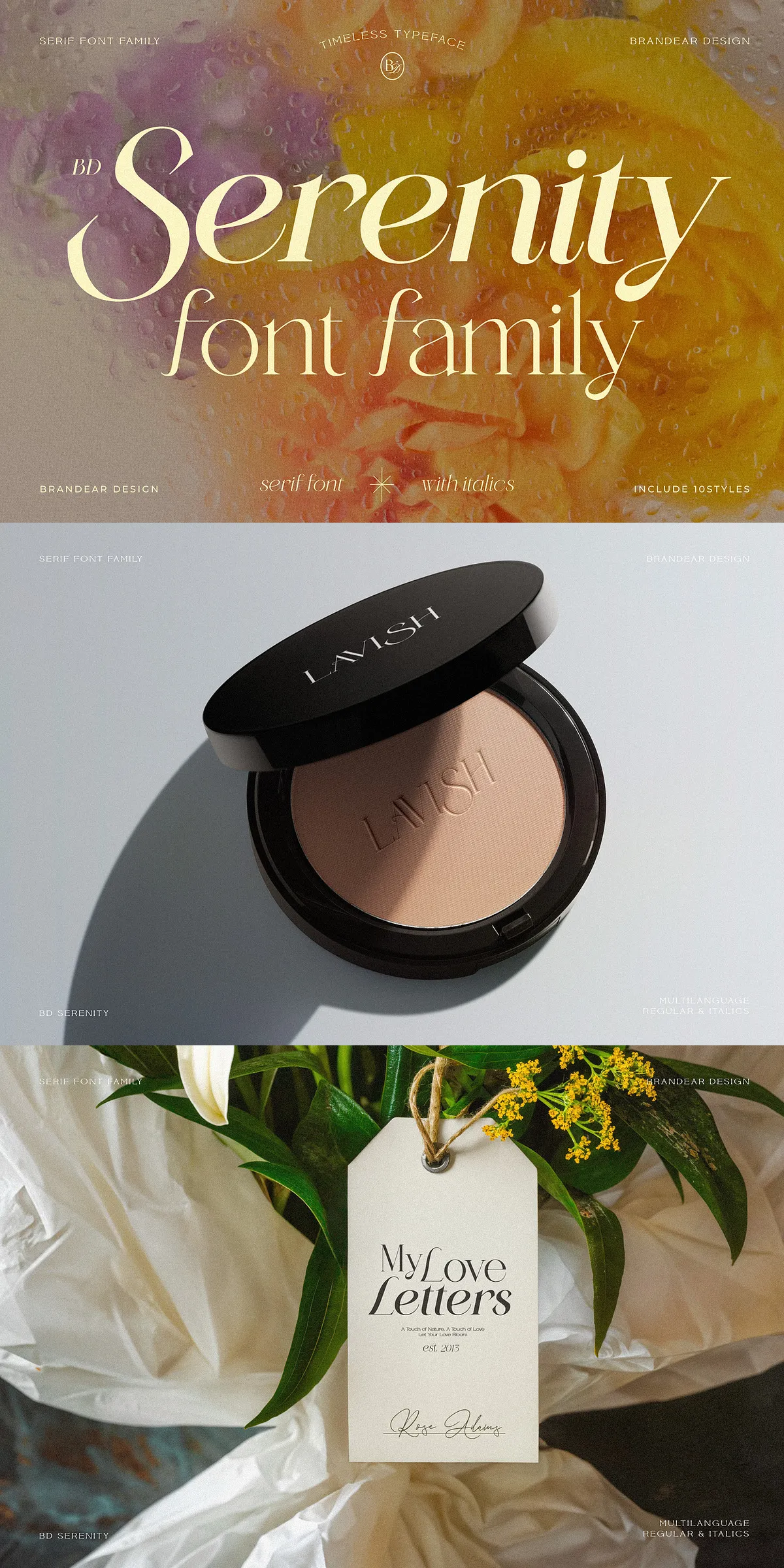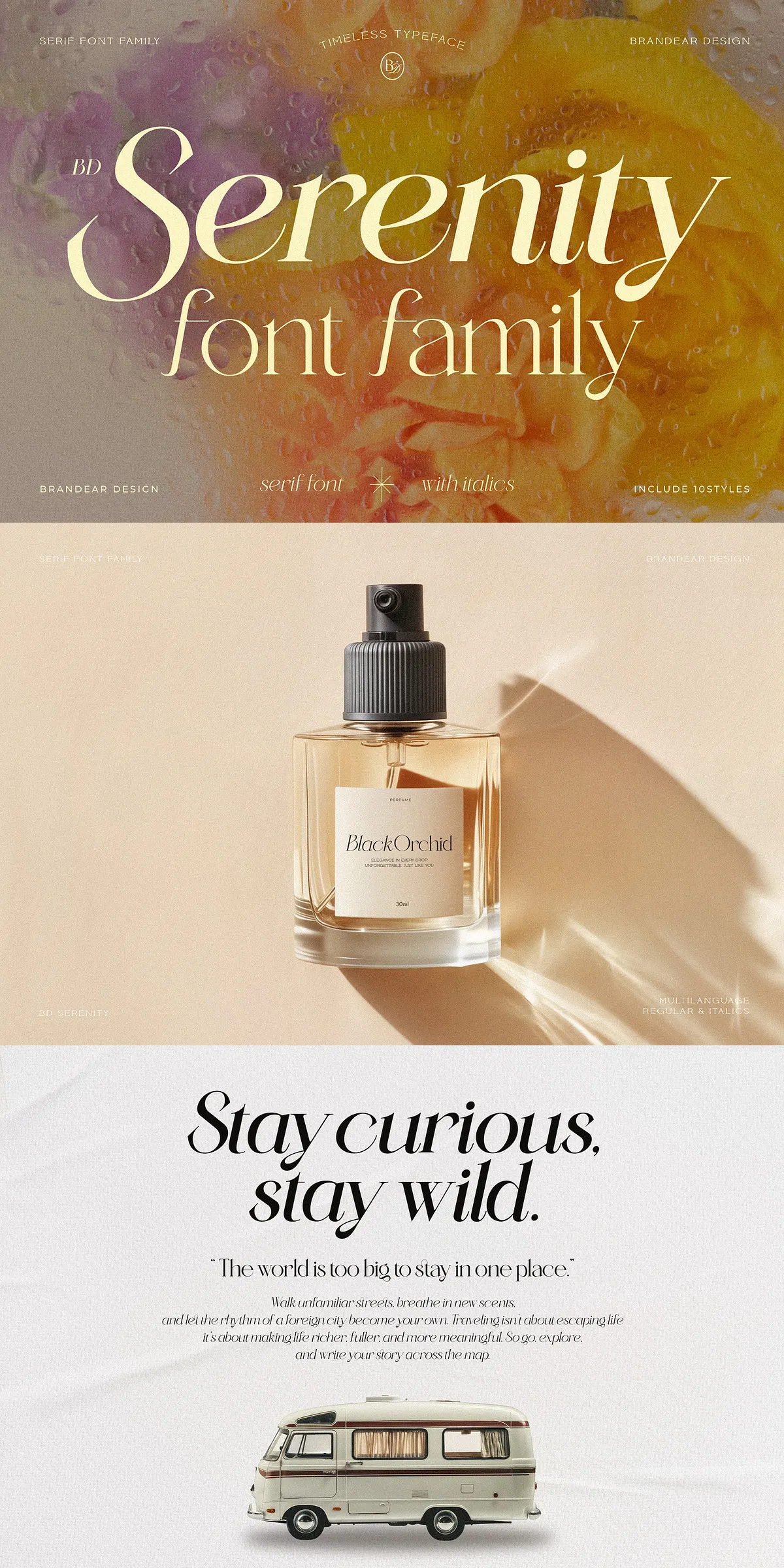
Introducing Serenity, a thoughtfully crafted serif typeface that redefines elegance with a quiet confidence. Designed for creators who value peace, precision, and style, Serenity brings a breath of calm to every design project. With its soft, flowing contours and balanced proportions, this font doesn’t just communicate—it resonates. Whether you’re building a high-end brand identity or curating a refined editorial layout, Serenity ensures your message is received with clarity, grace, and lasting impact.
Where Serenity Meets Style: A Typeface Built for Purpose
Serenity is more than a visual choice—it’s a mindset. Inspired by classical typography yet refined for modern needs, this font blends timeless beauty with functional versatility. Its five distinct weights—from light to extra bold—allow you to create dynamic visual hierarchies with ease. Pair the delicate Regular with the bold Black for dramatic contrast, or use the Italic variant to add subtle emphasis. This isn’t a one-size-fits-all font; it’s a responsive typography ecosystem designed to adapt to your creative vision.
Designed for Excellence: Key Features That Set Serenity Apart
Every detail in Serenity has been meticulously engineered to deliver maximum effect with minimal effort:
- Five Weights with Italic Variants – From delicate to commanding, Serenity gives you full control over tone and emphasis. Ideal for everything from subtle pull quotes to bold brand headlines.
- Smooth Curves & Graceful Lines – The fluid serifs and balanced stroke contrast give Serenity its signature soft elegance. Perfect for body text that’s both readable and expressive.
- 10 Unique Stylistic Alternates – Add personality to your text with customizable characters. Mix and match styles to create unique typographic compositions without compromising coherence.
- Advanced Letter Spacing Control – Optimize legibility on any medium. Tighten spacing for punchy, impactful titles or loosen it slightly for fluid, inviting body copy. Serenity adapts to your intent.
- Extensive Multilingual Support – With full coverage across 17 languages including Danish, English, French, German, Indonesian, Italian, Norwegian, Portuguese, Spanish, Swedish, Dutch, and more, Serenity speaks globally—without sacrificing elegance.
Unlock Your Creativity: Ideal Applications for Serenity
From editorial spreads to digital branding, Serenity thrives in any environment where sophistication matters:
- Magazine & Editorial Layouts – Elevate stories with headlines and captions that feel both intimate and refined. Serenity enhances narrative flow with its rhythmic balance.
- Logo & Brand Identity Design – Build trust and prestige with a font that exudes calm authority. Perfect for wellness brands, luxury products, and cultural institutions.
- Poster & Print Campaigns – Make your message unforgettable. Use Serenity for event posters, art show announcements, or product launches with a touch of understated luxury.
- Website & Digital Content – Apply Serenity to hero sections, testimonials, or featured content. Its legibility on screens ensures every word lands with clarity and charm.
- Invitations & Packaging – Add a personal, premium touch to wedding invites, gift boxes, or retail packaging. Serenity turns simple messages into heirloom-quality experiences.
Refine the Details: How to Use Serenity Like a Pro
To truly harness Serenity’s potential, go beyond default settings. Experiment with spacing, alignment, and pairing:
- For Headlines: Use tighter letter spacing and uppercase letters to create bold, eye-catching impact.
- For Body Text: Slightly loosen spacing and pair with a simple sans-serif for contrast and modern balance.
- For Emphasis: Use the Italic style within a paragraph to highlight key phrases without disrupting flow.
Think of Serenity not just as a font, but as a silent collaborator—guiding your design with quiet confidence, enhancing every word without overpowering it.
Serenity isn’t just a typeface—it’s a commitment to grace, balance, and timeless design. Use it, and let your work breathe with beauty.